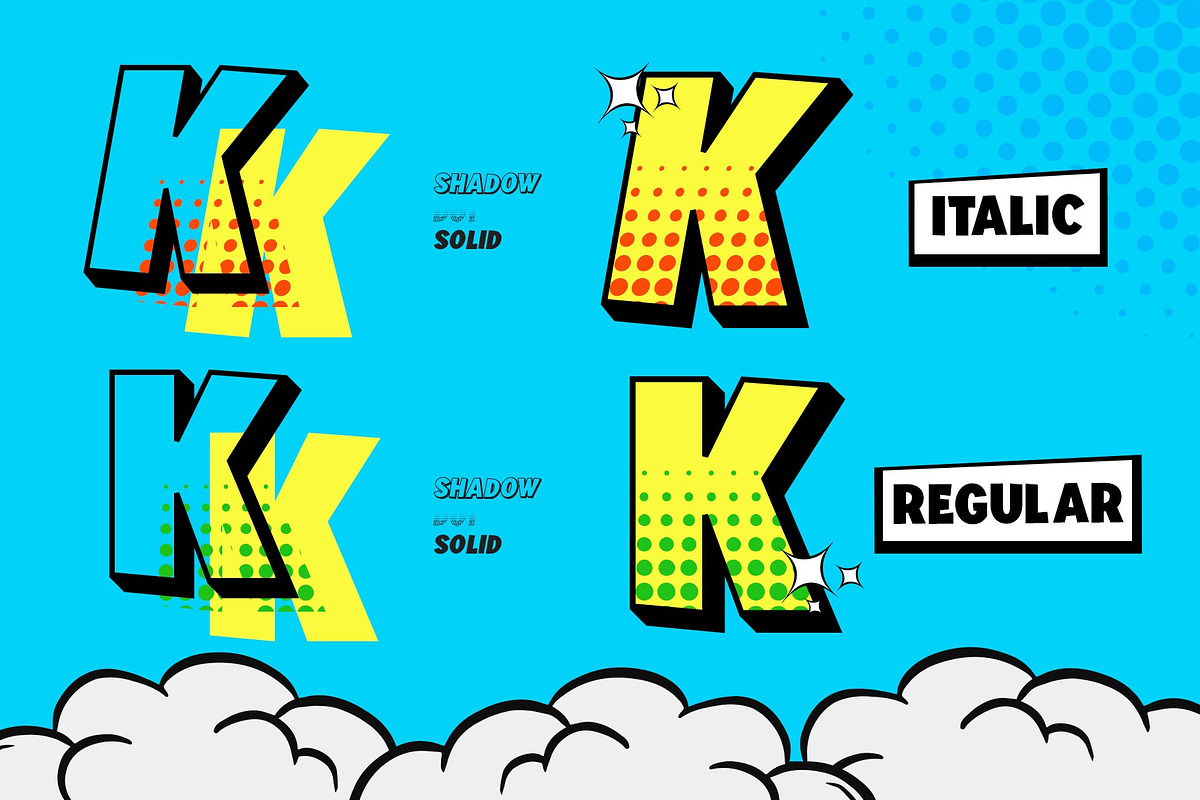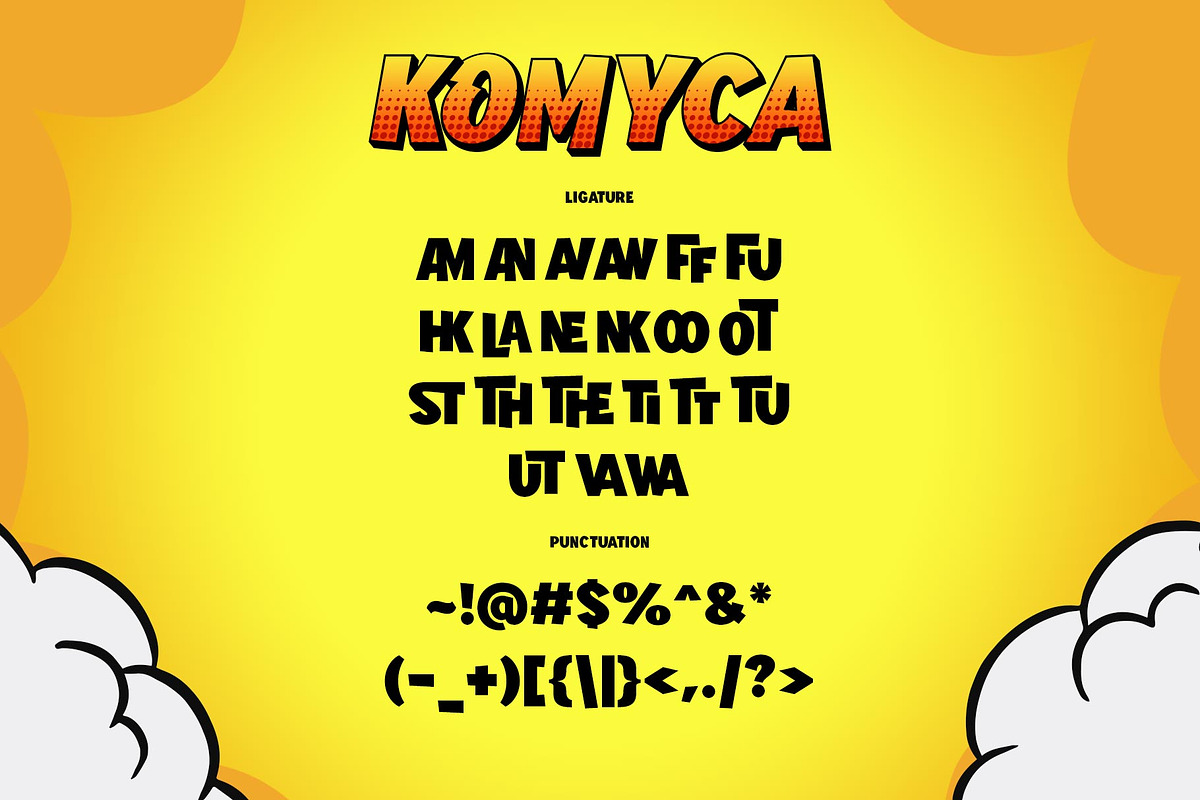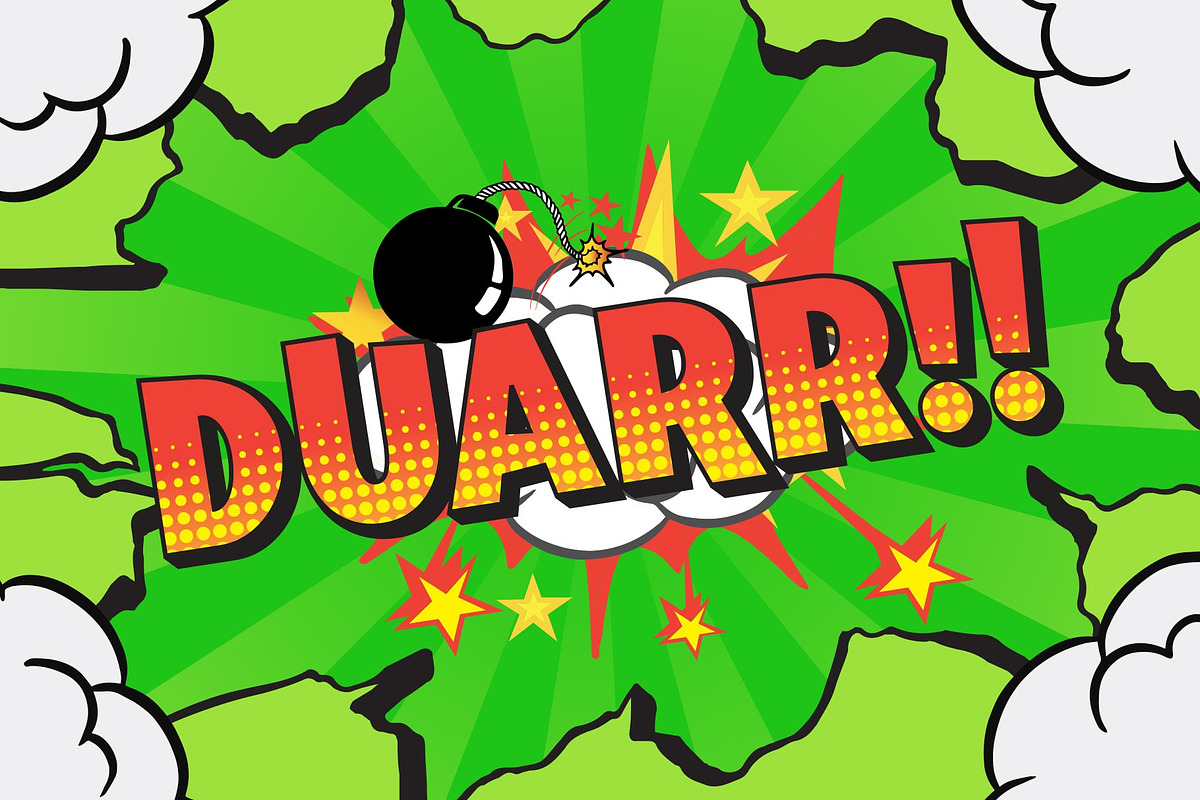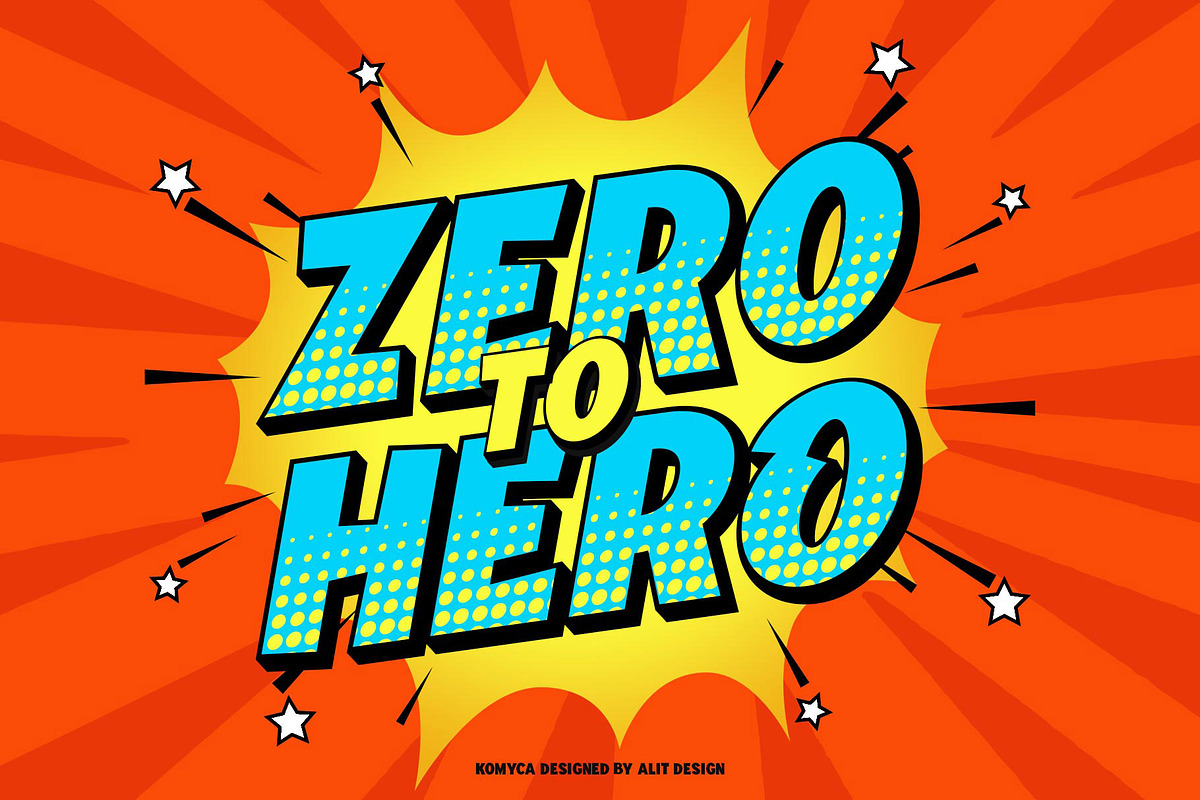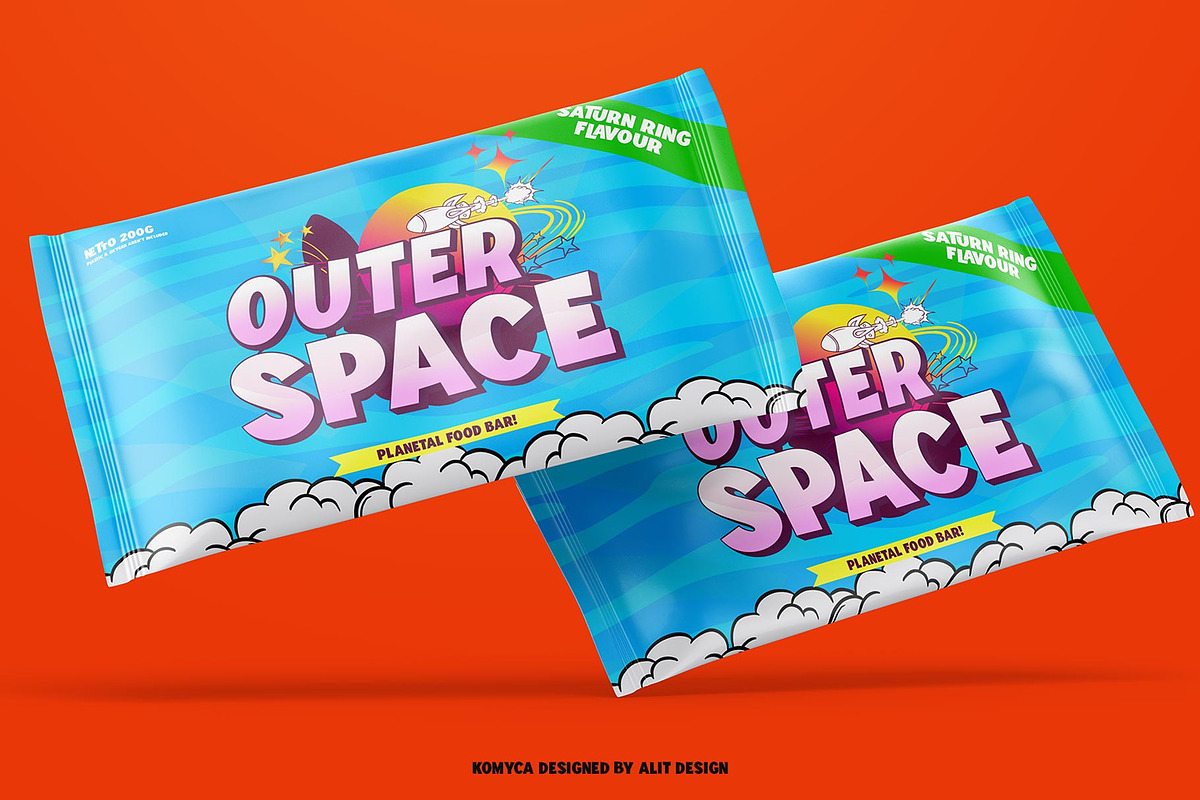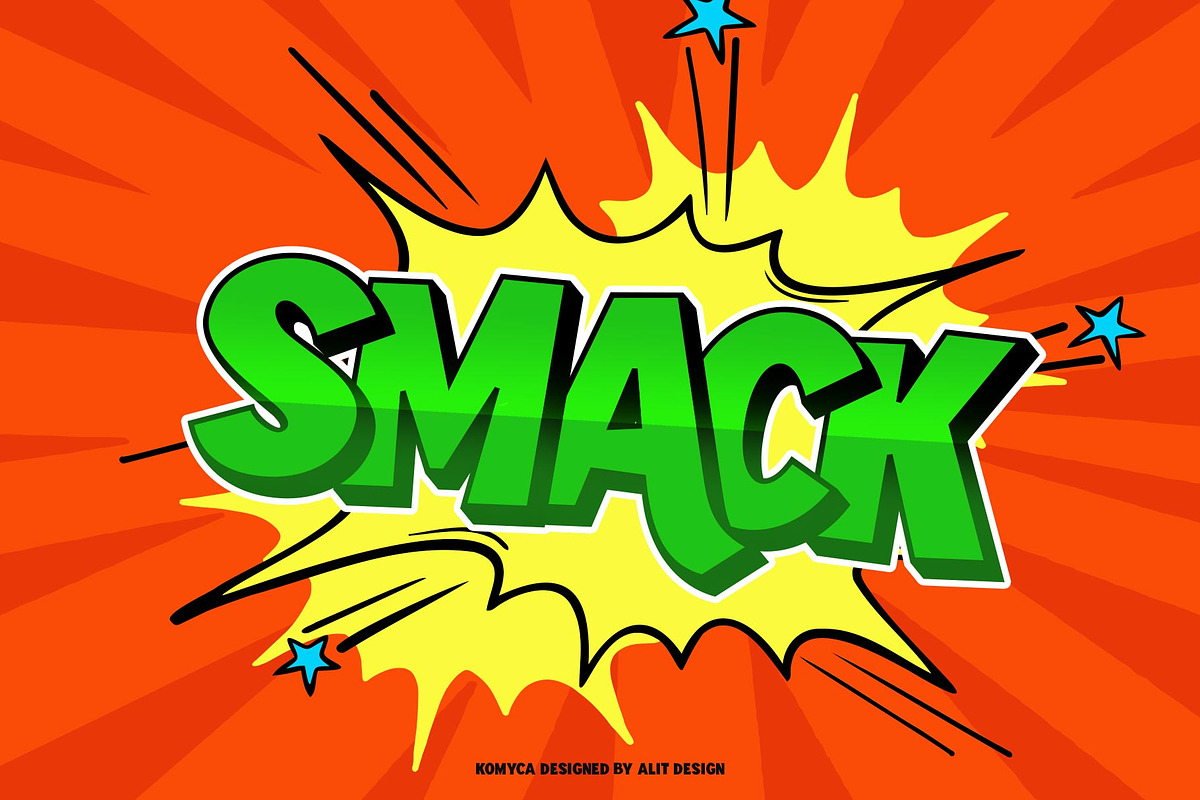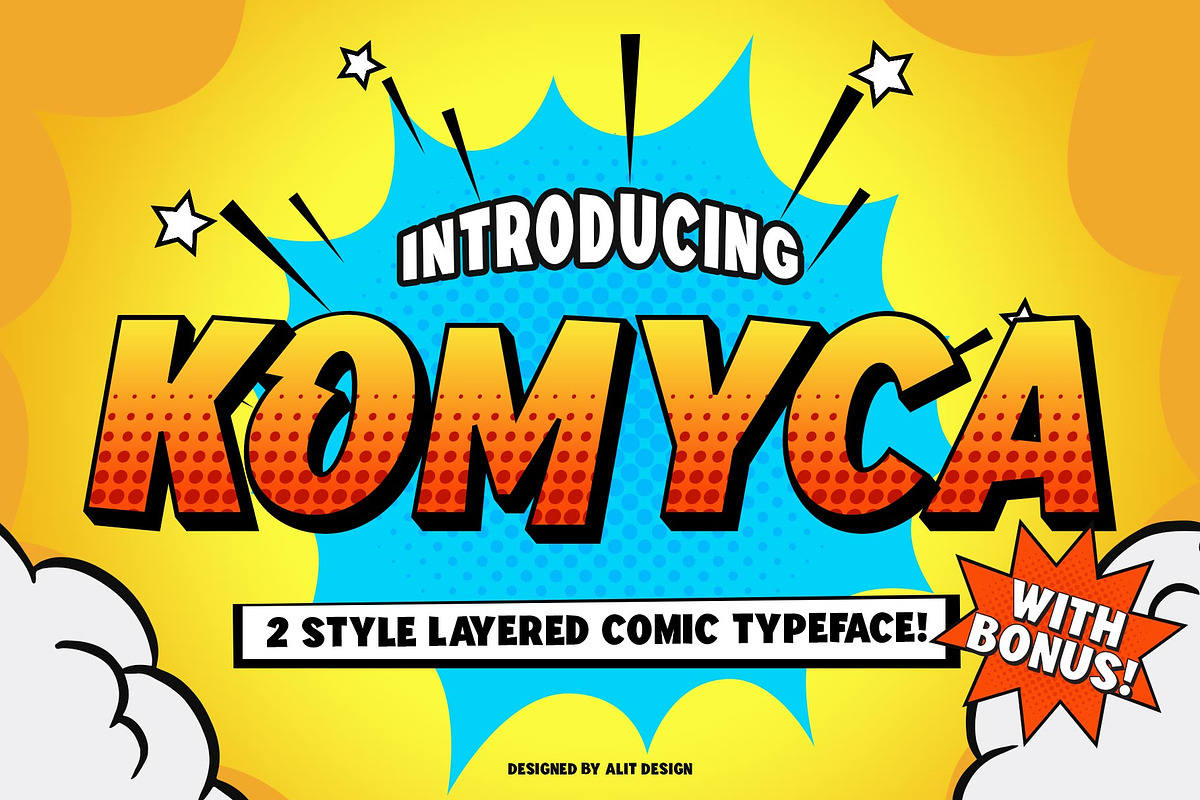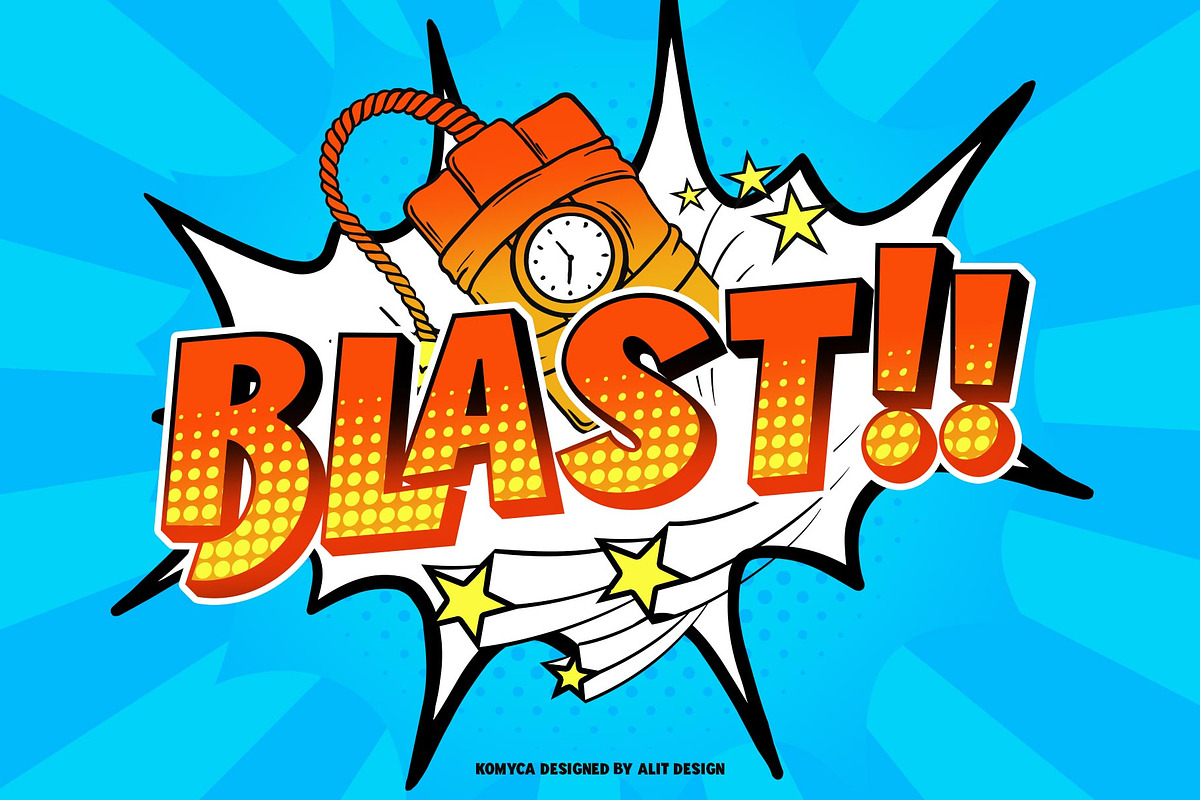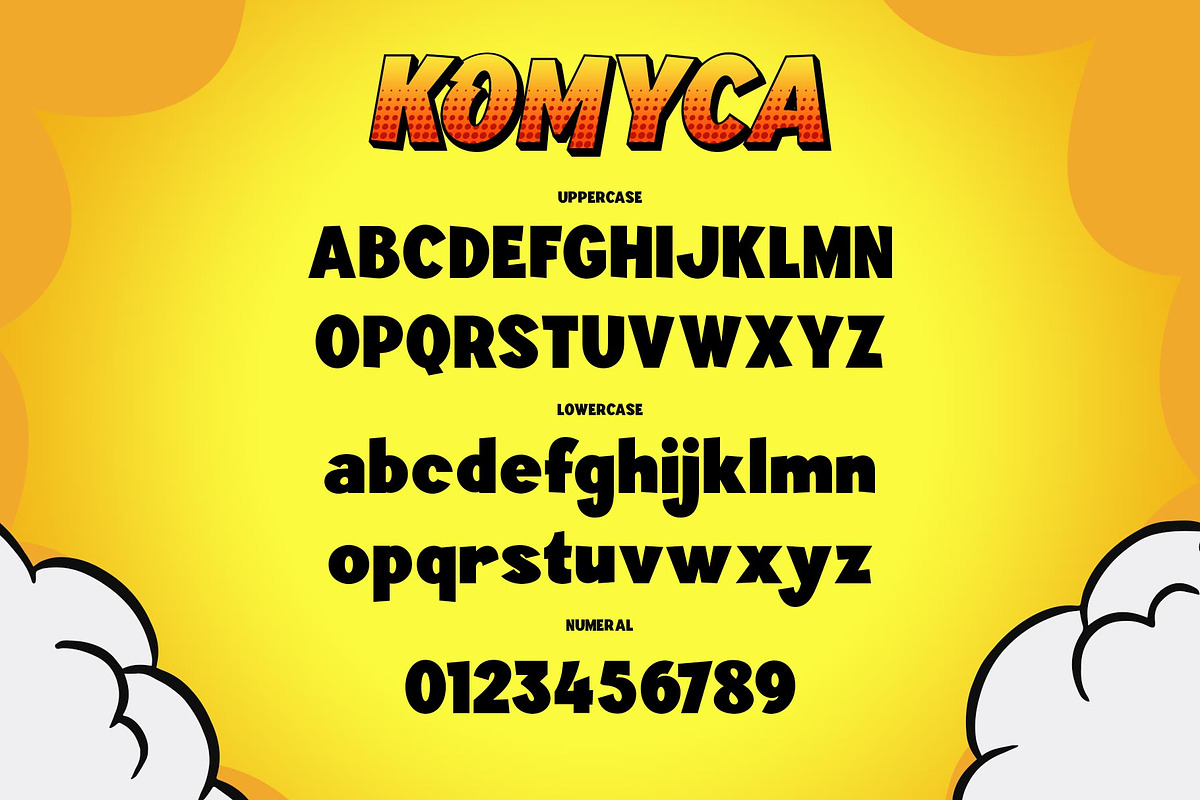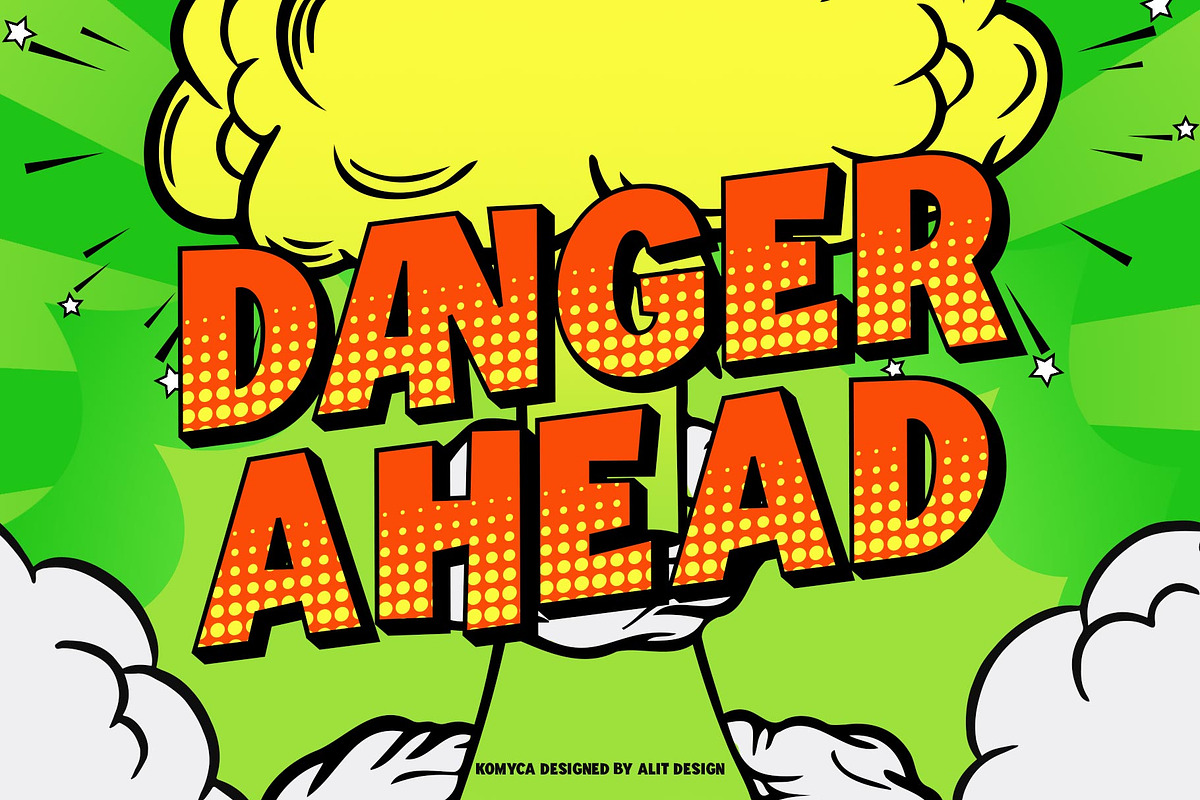
Komyca Layered Comic Typeface
Presenting the 🗯️💬Komyca Layered Comic Typeface💬🗯️ by alitdesign.
The Komyca Layered Comic Typeface is inspired by the style of letters in comics that have less serious and fun characters. The lettering of Komyca Layered Comic Typeface is a sans serif with display font characters which gives a fun and design impression for children. The Komyca Layered Comic Typeface has 2 style font regular and italic style and has 3 characters solid, dot and shadow. The Komyca Layered Comic Typeface is perfect for creating designs with non-serious concepts, designs for children, book headers, and of course for text on comics.
The Komyca Layered Comic Typeface also gets a bonus character of 230 Comic-themed illustrations that make creating designs even easier. Simply by downloading The Komyca Layered Comic Typeface creating a Comic and non formal themed design is very quick and easy.
The Komyca Layered Comic Typeface is perfect for magazine cover designs, brochures, flyers. Instagram ads, Canva Design and so on with comic, non-serious, pop art, game mobile and fun design. Besides that this font is very easy to use both in design and non-design programs because everything changes and glyphs are supported by Unicode (PUA).
The Komyca Layered Comic Typeface contains 565 + 230 bonus glyphs with many unique and interesting alternative options.